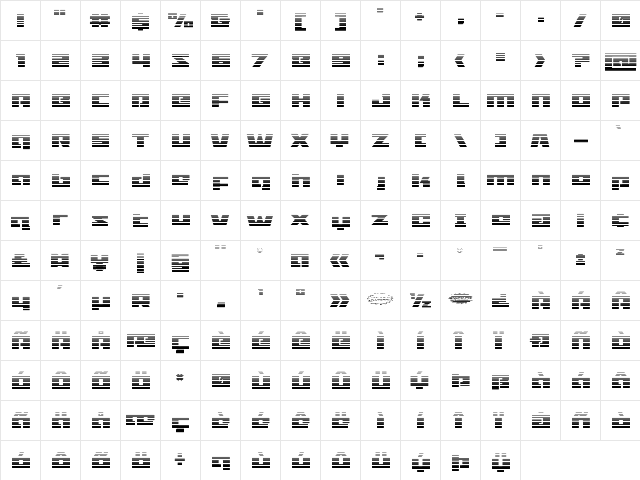
Turbo Charge Gradient Regular
Design Context for Turbo Charge Gradient Typeface
Turbo Charge Gradient is a composed and adaptable typeface that performs quietly and consistently across a wide range of design contexts.